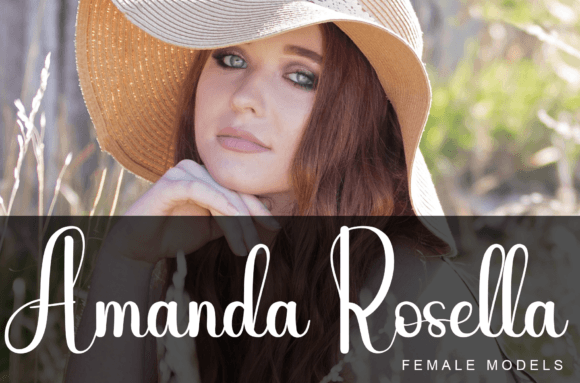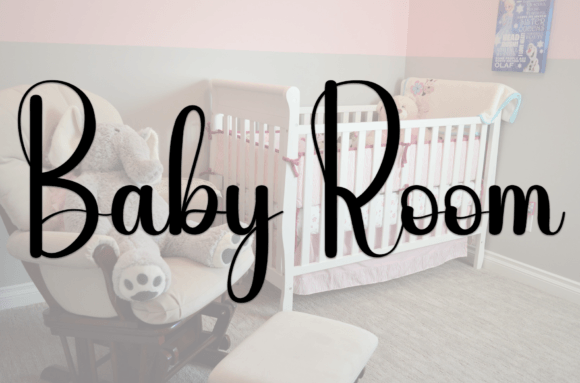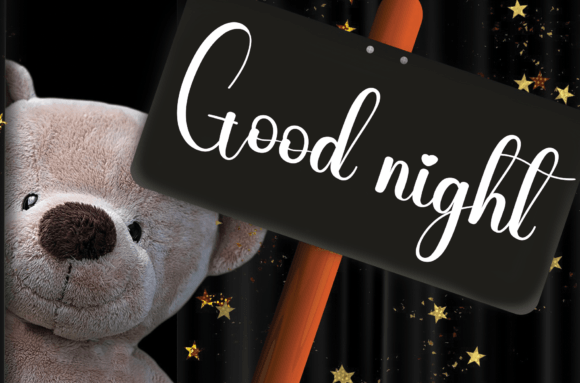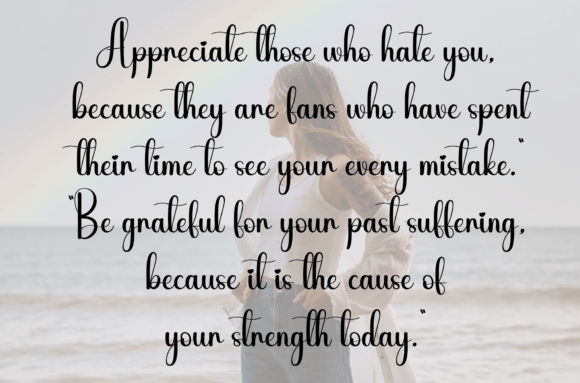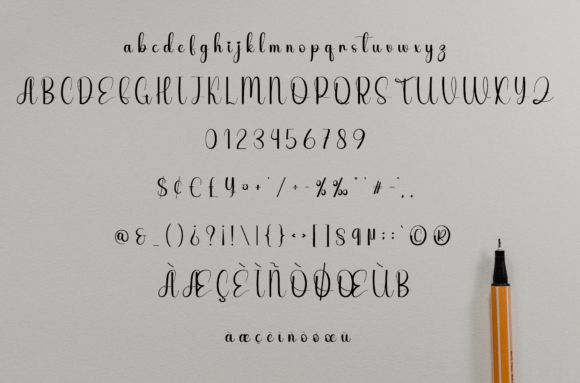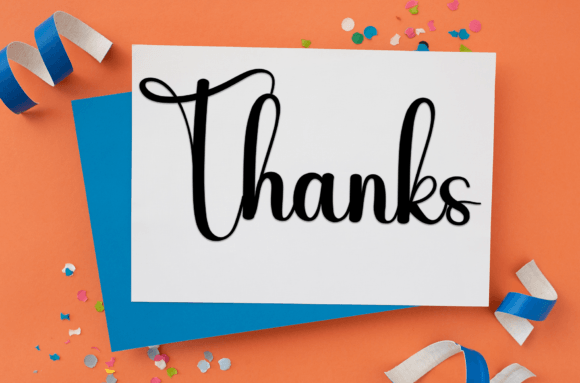
Pinion Font
About Pinion Font
Pinion Font is a sweet and friendly handwritten typeface designed to bring a joyful, personal feel to your projects. Its relaxed curves and approachable style make every word look warm and welcoming. Whether you’re designing wedding invitations, greeting cards, or branding materials, Pinion adds a touch of happiness and charm that resonates with any audience.
A Handwritten Style Full of Warmth
Pinion Font has a natural, flowing look that feels as if it were penned by hand. Every letter connects seamlessly, creating a smooth, cohesive style.
The rounded forms and soft lines make it look kind and approachable. This authentic touch helps your words feel sincere, which is perfect when you want to create a real connection with your audience.
Ideal for Special Occasions
Pinion shines in projects that celebrate life’s happiest moments:
• Wedding Invitations: Set a romantic tone with a hand-lettered style that feels personal and heartfelt.
• Greeting Cards: Add warmth to thank you notes, birthday wishes, or holiday greetings.
• Baby Showers: Create playful, sweet designs to welcome new life.
• Anniversaries: Highlight meaningful milestones with beautiful typography.
When you want to capture the spirit of joy and togetherness, Pinion is your perfect choice.
Versatile for Branding and Marketing
Pinion Font is not just for special events. Its clean, casual look makes it a smart fit for branding and promotional projects too:
• Logos: Give your brand a friendly, human feel that’s instantly recognizable.
• Product Packaging: Use Pinion on labels, tags, and packaging for a handcrafted vibe.
• Social Media: Create engaging posts, quotes, and promotions that stand out in feeds.
• Web Design: Add personality to headings, buttons, and calls to action.
Pinion is easy to read and adaptable, so it works beautifully across digital and print platforms.
Easy to Customize and Pair
Pinion Font includes uppercase and lowercase letters, numbers, punctuation, and symbols. The balanced character set helps you create neat, polished designs every time.
It pairs wonderfully with clean sans-serif fonts for a modern look or with soft colors and delicate illustrations for a romantic feel. Whether you’re aiming for elegance, playfulness, or simplicity, Pinion adapts to your vision.